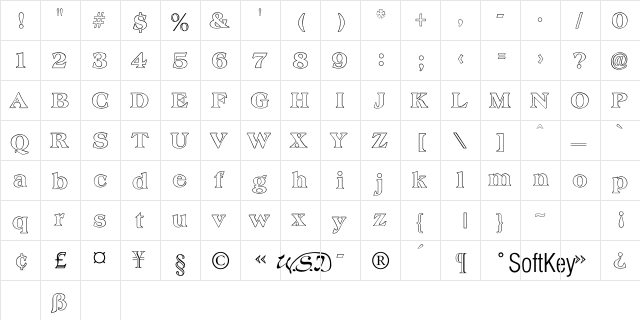
UncleSam-Outline Regular
Design Context for UncleSam-Outline Typeface
UncleSam-Outline brings ornamental detail and strong personality to headlines and identities, where visual impact matters more than quiet functionality.
Font Pairing: Pair with a clean neutral sans-serif for body copy to let UncleSam-Outline's character lead without overwhelming the composition.
Pro Tip: Use UncleSam-Outline exclusively at display sizes — it was designed to be seen, not read at length. Let a neutral companion handle body copy.